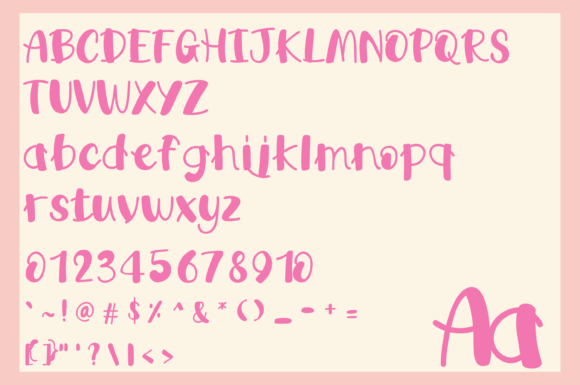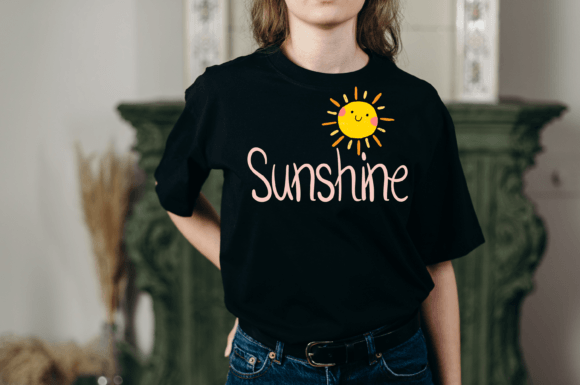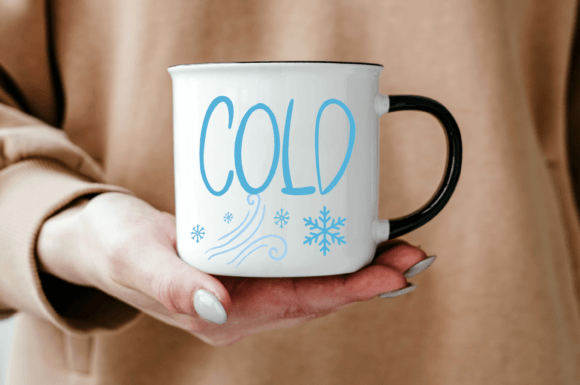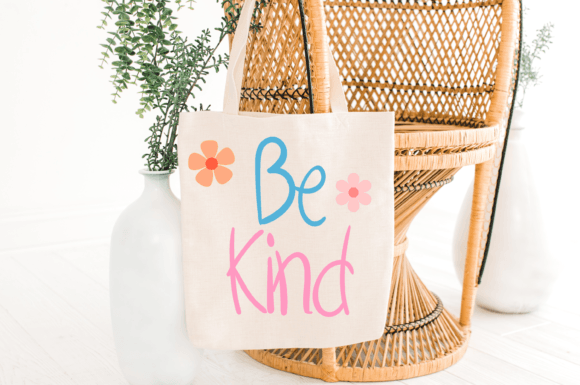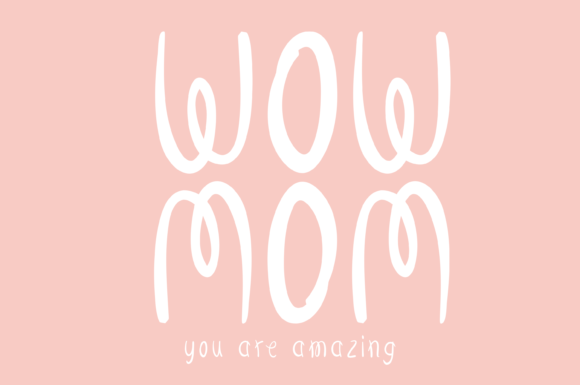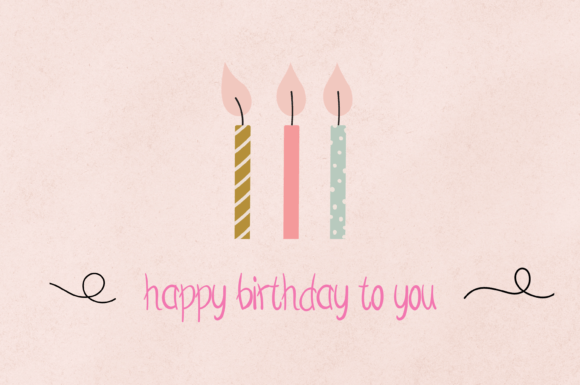
Custard Cake Font – Free Download
Introduction to Custard Cake Font
Custard Cake Style is a whimsical and clean handwritten font.
| 👤 Author | AchiArt |